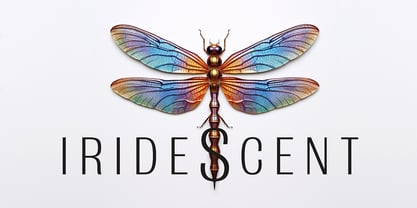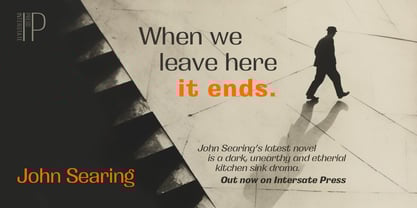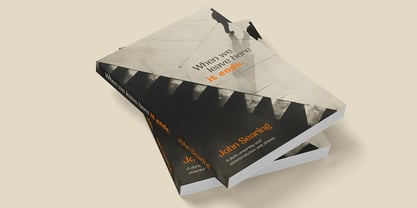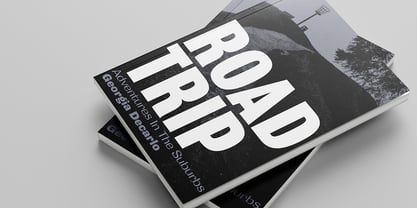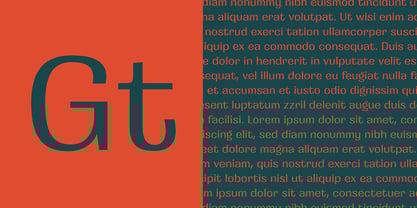
Grange Text
by Device
The Grange Text Font Family was designed by Rian Hughes and published by Device. Grange Text contains 20 styles and family package options.
Grange Text is optimised for smaller text sizes, having more open character shapes and spacing. Use the non-text version of Grange for larger sizes and headlines, which has tighter spacing and detailing.
Grange is the Device interpretation of the classic “Grot” thick/thin sans style. Unlike the traditional models on which it is based, Grange takes a rational, consistent approach across wide range of weights and widths for contemporary use.
The font includes alternative curved and straighter versions of key characters, most obviously the lower-case ‘g' and capital ‘R', allowing the font to take on either a sharper or warmer, more playful appearance. These can be toggled on or off using the ‘Alts' feature in Illustrator, or ‘Stylistc Sets’ in Indesign. Contains proportional, lining and tabular numerals.
About Device
Device Fonts is the font arm of Rian Hughes’ Device studio, based in West London. An early contributor to FontShop’s FontFont range, Device Fonts was launched in 1997 to carry Hughes’ growing library. It has since released over 250 original typefaces covering more than 1500 individual weights, including custom designs for clients as diverse as Mac User, 2000AD and The Teenage Mutant Ninja Turtles. Rian studied at the London College of Communication in London before working for an advertising agency, Smash Hits, i-D magazine and a series of record sleeve design companies. Under the studio banner Device, he now provides design, custom type and illustration for advertising campaigns, record sleeves, book jackets, graphic novels and television. He has designed posters for Tokyo fashion company Jun Co.’s Yellow Boots chain, the animated on-board safety film for Virgin Airlines, Eurostar’s poster campaign, a collection of Hawaiian shirts, a range of watches for Swatch, an award-winning brochure for MTV Europe’s Music Awards, and numerous book jacket illustrations and CD covers. He has designed hundreds of logos for DC, Marvel, Valiant, Image and other comic book companies for such titles as Batman, the X-Men, James Bond, The Avengers and Spider-Man. Long connected with the world of comics, Rian Hughes' first graphic novel was The Science Service for Belgian publisher Magic Strip. This was followed by Dare for IPC’s short-lived Revolver, an “iconoclastic revamp of the ’50s comic hero Dan Dare”, written by Grant Morrison. His strips from the Galaxy’s Greatest have been collected in Yesterday’s Tomorrows (Dare, Really and Truly plus others) and Tales from Beyond Science (written by Mark Millar, John Smith and Alan McKenzie). More recently he wrote and drew a Batman: Black and White tale, contributed to Vertigo: Magenta, designed the map of the DC Multiverse and was reunited with Morrison for several stories in Heavy Metal magazine. He has contributed to numerous international exhibitions, lectured widely both in the UK and internationally, and a one-man show of his work was held in 2003 the Conningsby Gallery, London. A retrospective monograph, Art, Commercial was published in 2002, and Ten Year Itch, a celebration of the first ten years of Device Fonts, was published in 2005. Other books include https://www.amazon.co.uk/Typodiscography-Rian-Hughes/dp/1910870048">Typodiscography , Custom Lettering of the 20s and 30s, and the all-ages wordless graphic novel I Am A Number. Soho Dives, Soho Divas collects his burlesque drawings, and he sets out his memetics manifesto in Cult-Ure: Ideas Can Be Dangerous. A collection of his logo designs, https://www.amazon.co.uk/Logo-gogo-Branding-Pop-Culture/dp/0993337422">Logo a Gogo was released in 2018 by Korero Press. More recently he has published three novels which incorporate design and typography as an integral part of the narrative: XX, The Black Locomotive and The Absence. He has an extensive collection of Thunderbirds memorabilia, a fridge full of vodka, and a stack of easy listening albums which he plays very quietly. The Premium foundry page can be viewed Here.